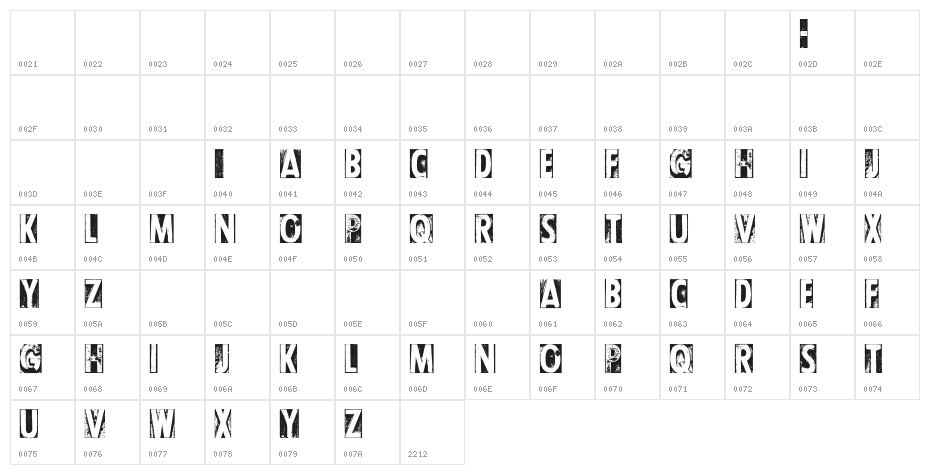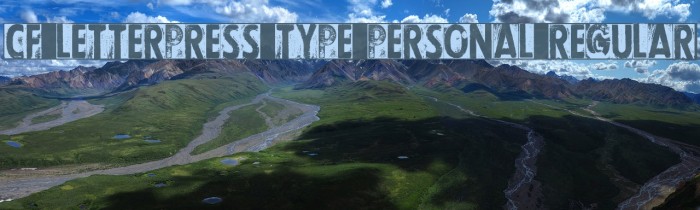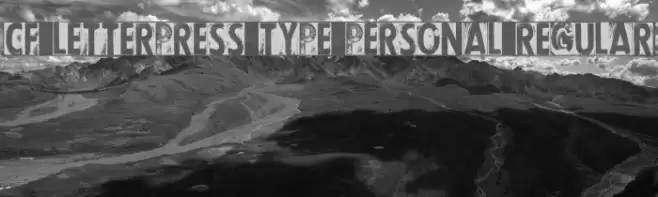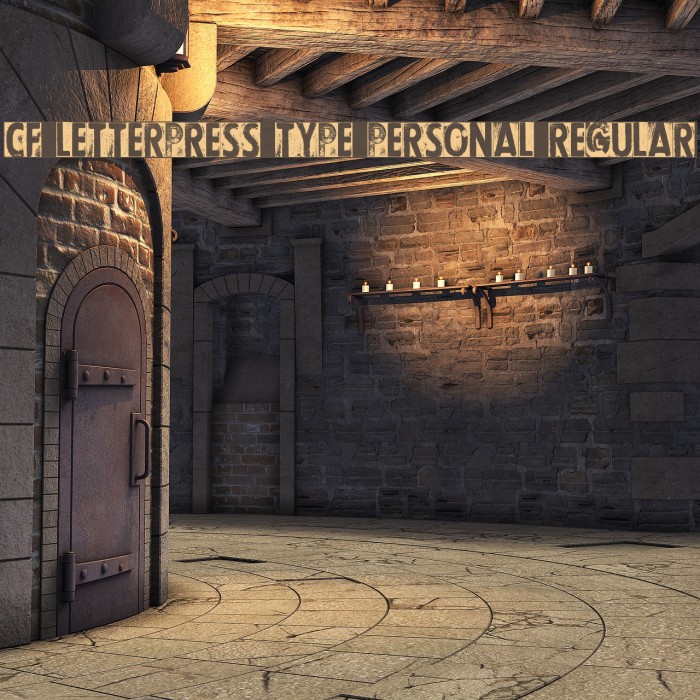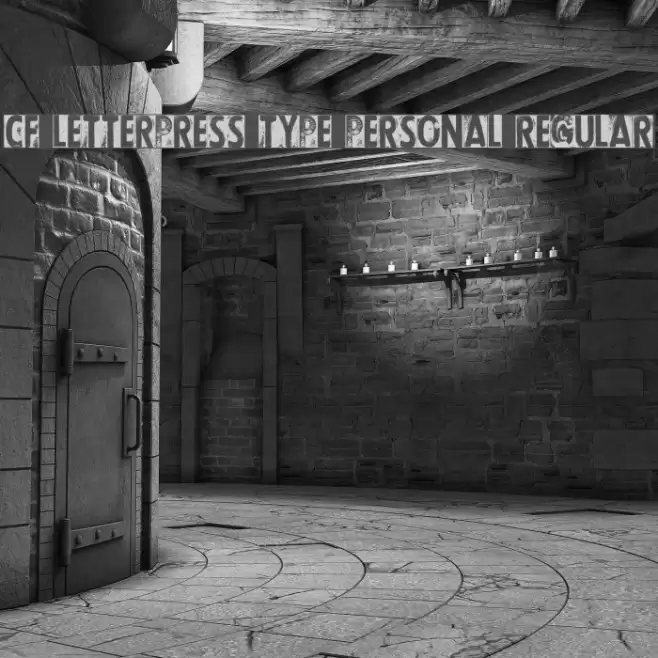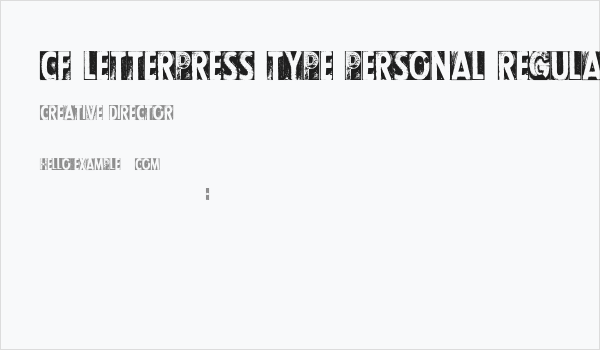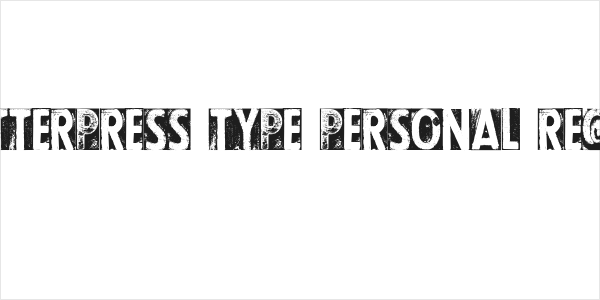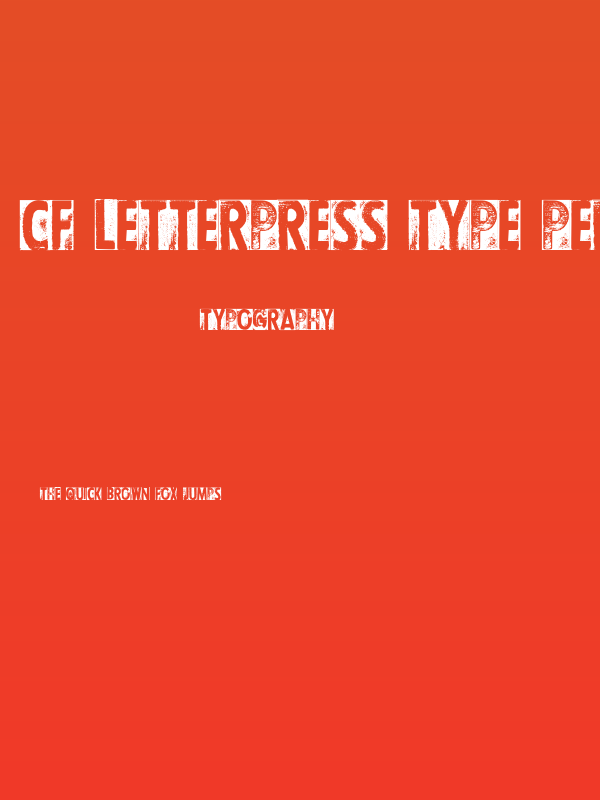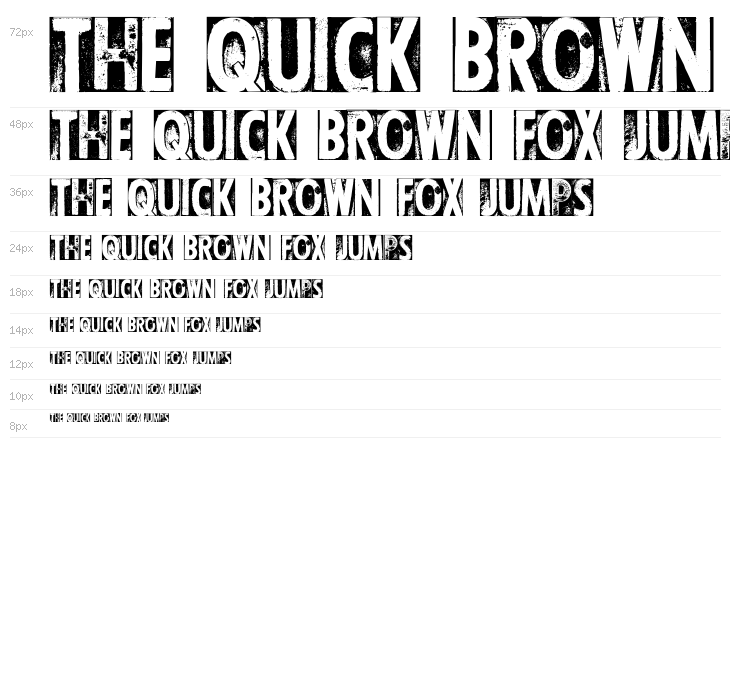
CF Letterpress Type PERSONAL Regular Font
CF Letterpress Type PERSONAL Regular Description
This font features a bold, distressed style reminiscent of vintage letterpress printing. Each character is uniquely textured, giving the impression of ink pressed onto paper with varying pressure. The uppercase letters are prominent and impactful, making them ideal for attention-grabbing designs. The texture adds a rugged, handcrafted feel, perfect for projects that require a touch of nostalgia or a rustic aesthetic. The characters are uniformly wide, ensuring a consistent look across different text lengths. This font is particularly suited for creative projects that aim to evoke a sense of history and authenticity.
| Proposed Projects | Ideal for posters, branding, packaging, and any design needing a vintage or handcrafted look. |